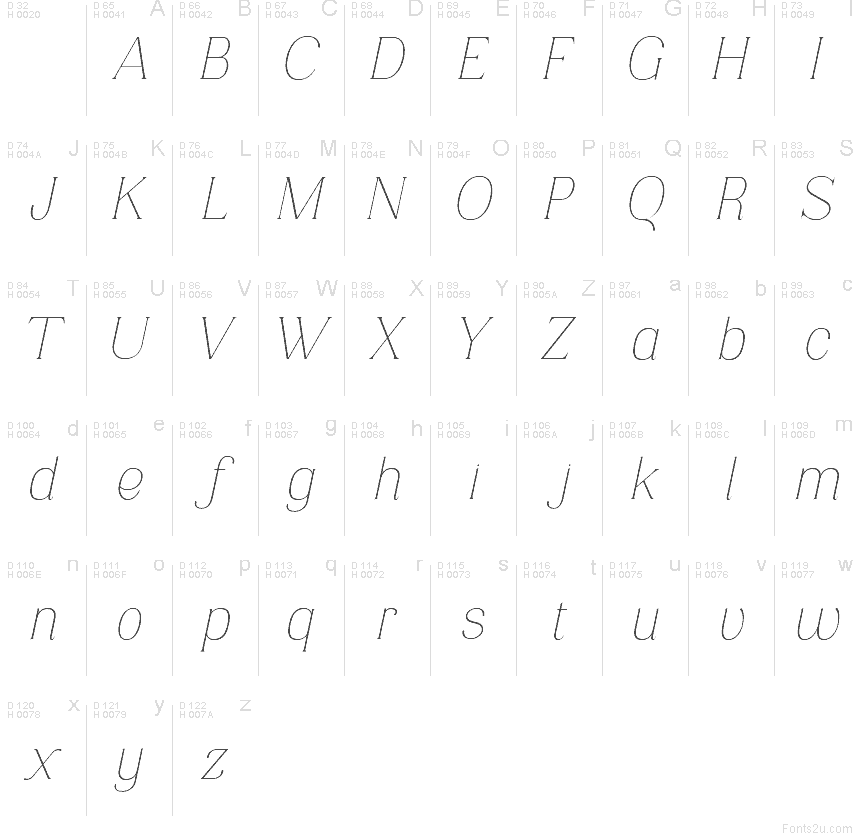
Solhene Demo Italic
Solhene Italic font by VPcreativeshop is a free serif typeface that feels like a handwritten note translated into fine print. Its gently leaning letters, hairline strokes, and long, flowing shapes give every word a sense of motion and air, like ink drawn with a careful, practiced hand. Sitting within the Solhene family, this italic style brings a whispery elegance that’s refined without feeling stiff or old-fashioned.
Using Solhene Italic, you can give fashion branding, wedding stationery, perfume and skincare packaging, magazine covers, social media quotes, and boutique logos a light, luxurious sheen. The spacing is roomy and graceful, so it shines at larger sizes where the delicate curves can really breathe. For a simple pairing, use this free font for headlines and combine it with a clean, neutral sans serif for supporting text.